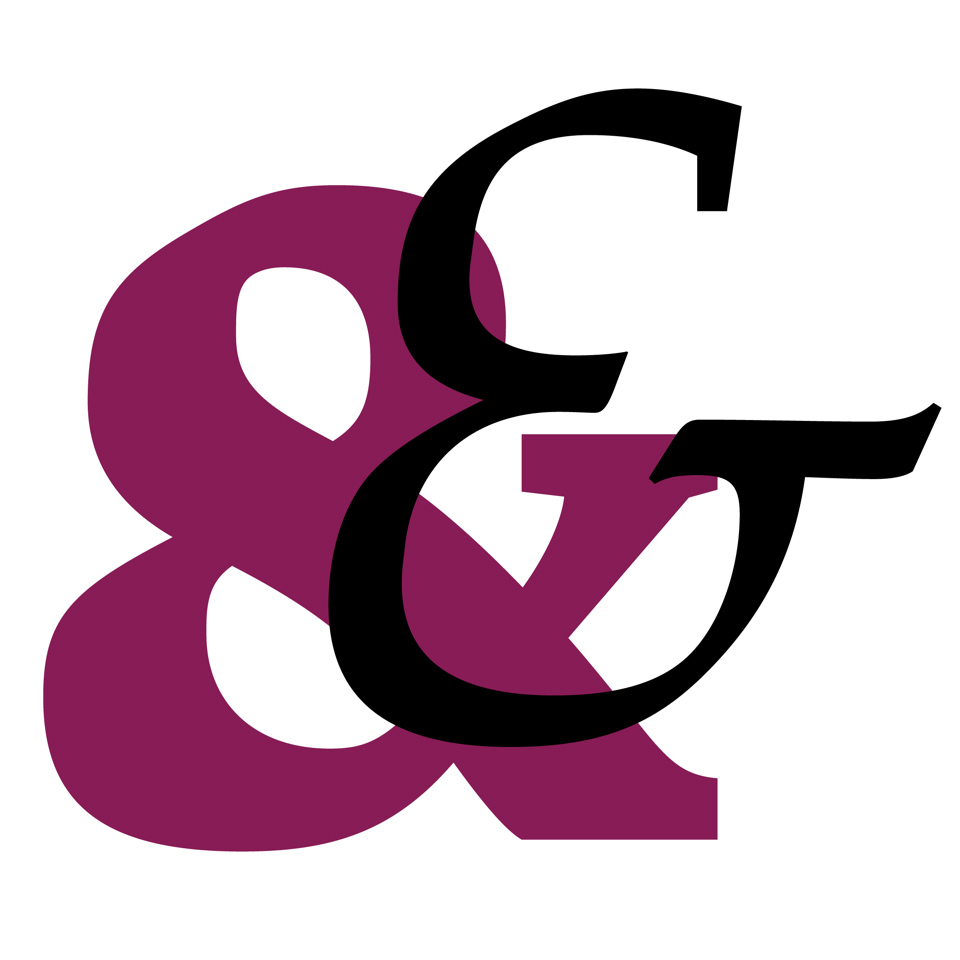
Typeface of the Month: Study
Although the technologies for producing type have become far more expedient, the techniques for designing type are essentially the same. While developing Study, our new Typeface of the Month published by XYZ Type, the key challenge was to combine the past and the present, to translate the warmth of a hand-painted specimen into cold, unforgiving vector outlines.
Study is a new serif type family with a strong personality and a fascinating history. The design blends elements of calligraphy and typography, with tension between soft outer shapes and angular counterforms. Dramatic forms draw attention at large sizes, yet become quiet in paragraphs of text. The typeface’s large counterforms and wide proportions make it extremely clear and readable without sacrificing style. Study is based on a concept rendered by Rudolph Ruzicka (1883–1978) in the book Studies in Type Design (1968) but never previously completed as a functioning font. Ruzicka’s signature aesthetic is at its peak in these lively letterforms, demonstrating his interest in Czech lettering and his skill as a wood engraver.
By creating Study, designer Jesse Ragan has completed Ruzicka’s unfinished typeface fifty years after it was first published, adapted to modern typography and technology. The original source material for Study existed as only a limited hand-painted alphabet, so a deep understanding of Ruzicka’s life and work helped Ragan find the design’s true voice. Over several years, he extensively researched the Czech-American designer and illustrator’s body of work, studying archives of unpublished drawings and correspondence.
In its final digital form, Study is a family of twelve font styles, each including small capitals, ligatures, fractions, and four kinds of numerals. The fonts are designed to work well in print and on screen, from large sizes down to text settings.
Study
Foundry: XYZ Type
Designer: Jesse Ragan, Rudolph Ruzicka
Release: 2018
Weights: 7 weights in roman and italic